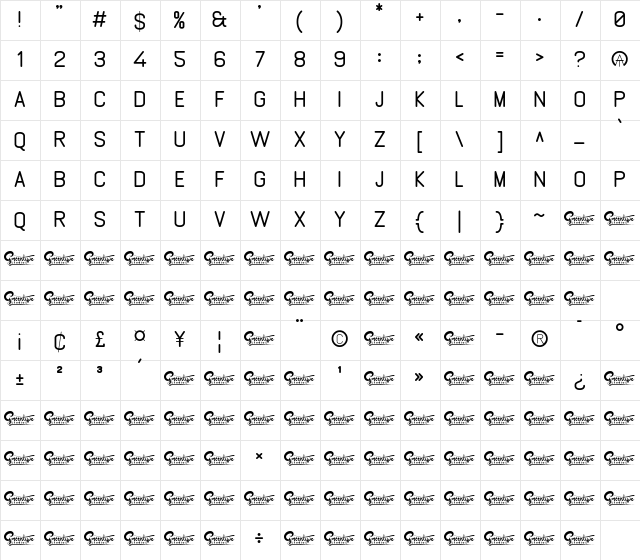
GABOED thin
Design Context for GABOED Typeface
GABOED offers clean, dependable letterforms without strong stylistic allegiance, making it a practical choice for designers who need flexibility. Its slender proportions lend an understated elegance to any composition.